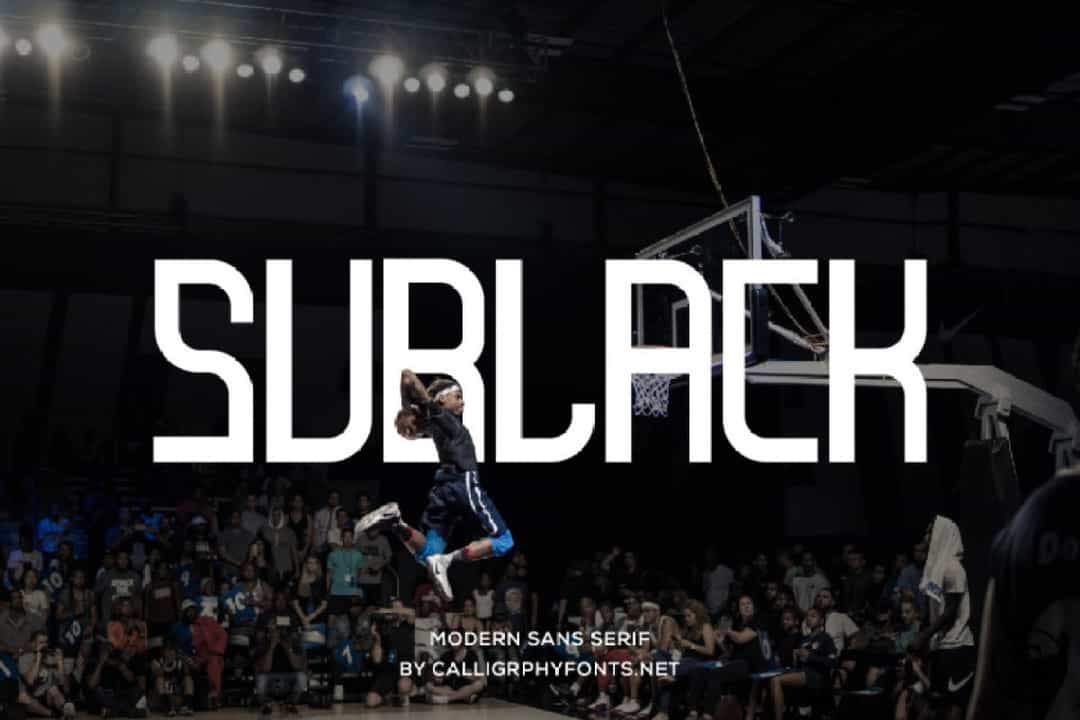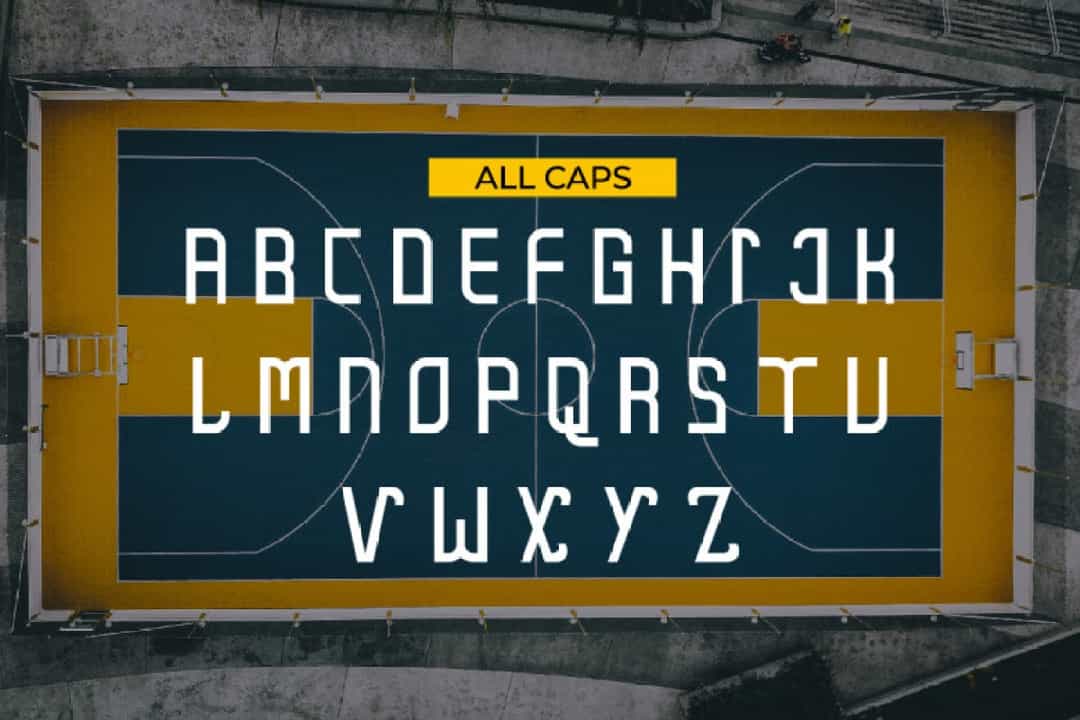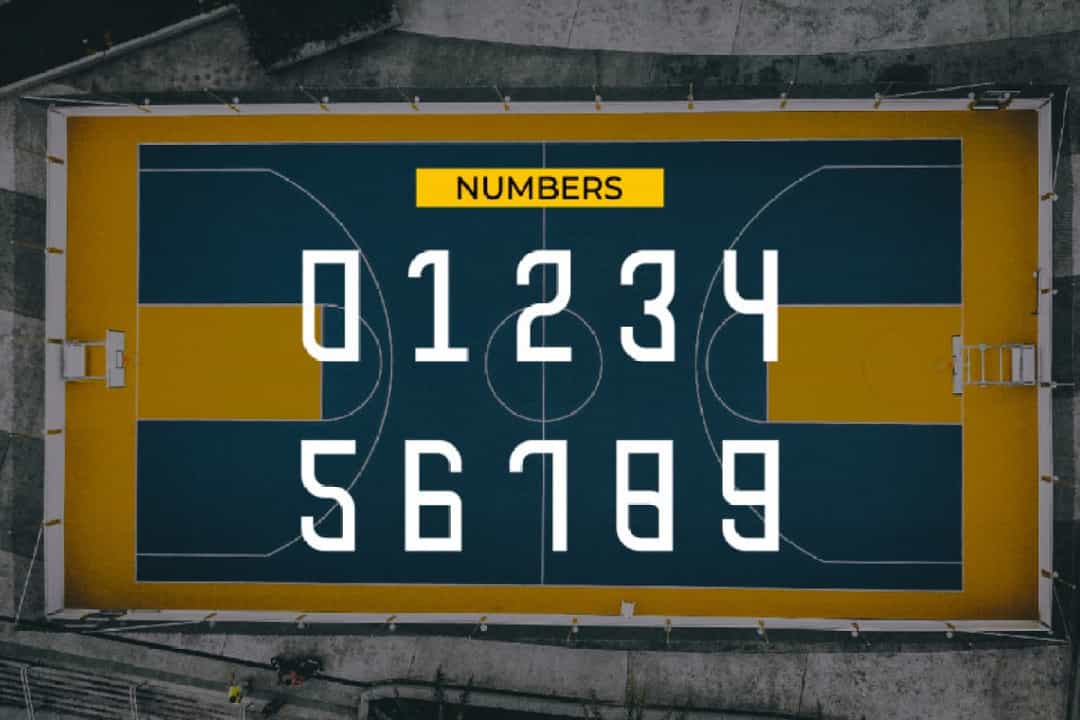
Sublack is the great display sans serif font with the clean and contemporary look which can’t be ignored. The style of this font is best defined as modern elegant, classy elegance, elegant, classic and elegant.